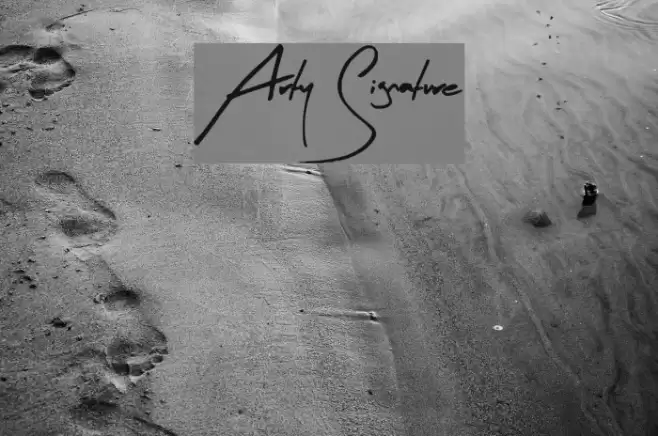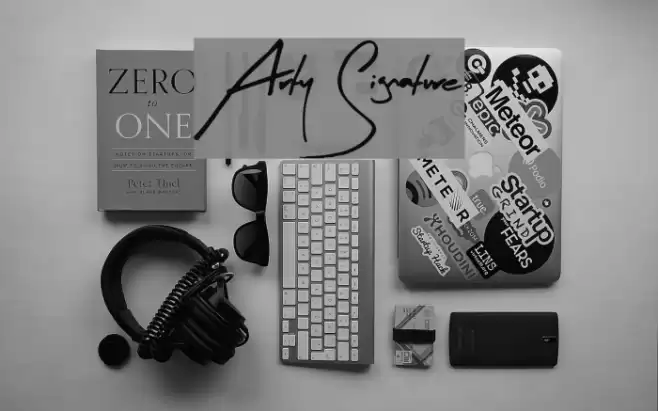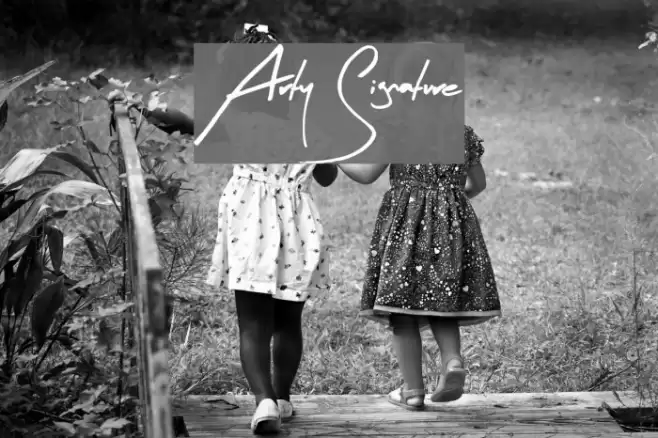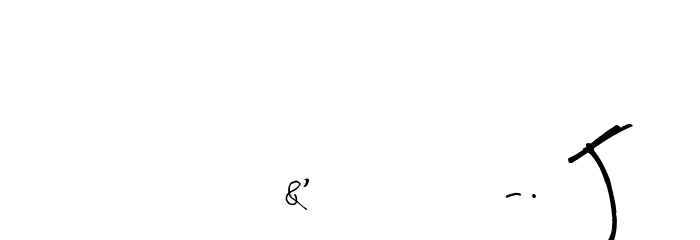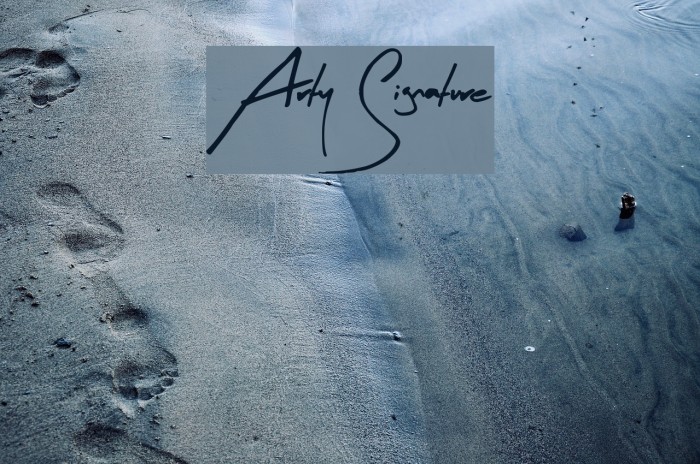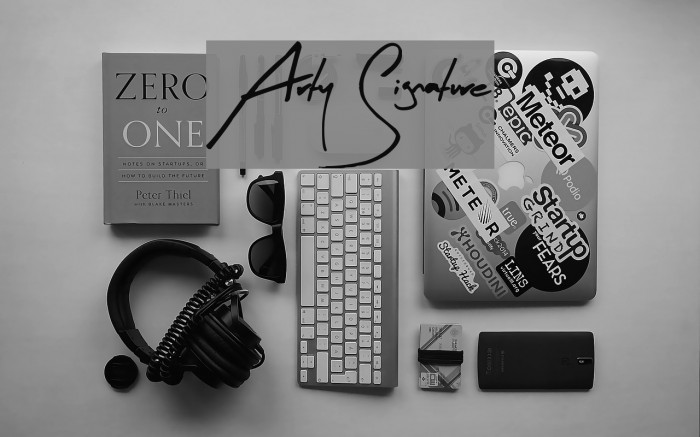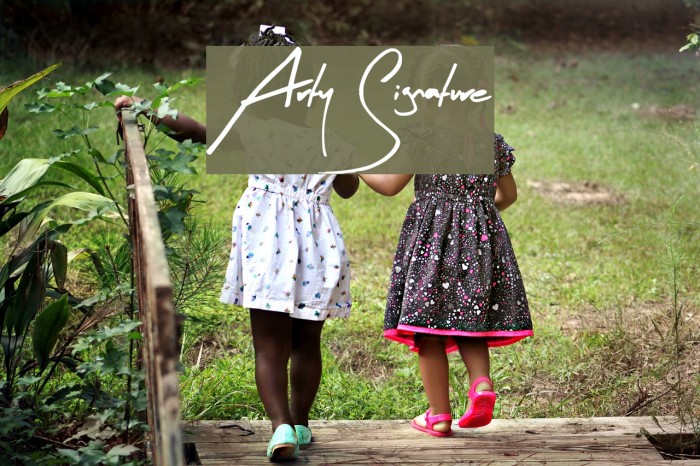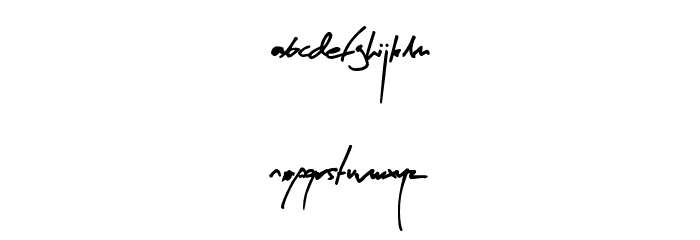
Arty Signature
This font exudes a dynamic and artistic flair, characterized by its fluid, handwritten style that mimics the natural flow of a signature. The letters are elongated and slightly slanted, giving a sense of motion and spontaneity. The strokes are varied, with some letters featuring bold, sweeping lines while others are more delicate and intricate. This contrast in stroke weight adds to the font's expressive nature. The uppercase letters are particularly striking, with exaggerated curves and loops that capture attention. The lowercase letters maintain a consistent style, offering a cohesive look. The special characters are uniquely crafted, complementing the overall aesthetic. This font is perfect for projects that require a personal touch or an artistic edge.
A dynamic, handwritten font with a signature-like style, featuring varied strokes and expressive curves.
- Proposed Projects: Ideal for personal branding, artistic projects, invitations, and creative logos.
- Contrast: High
- Overall Style: Artistic
- Use Case: Logos, Invitations, Personal branding